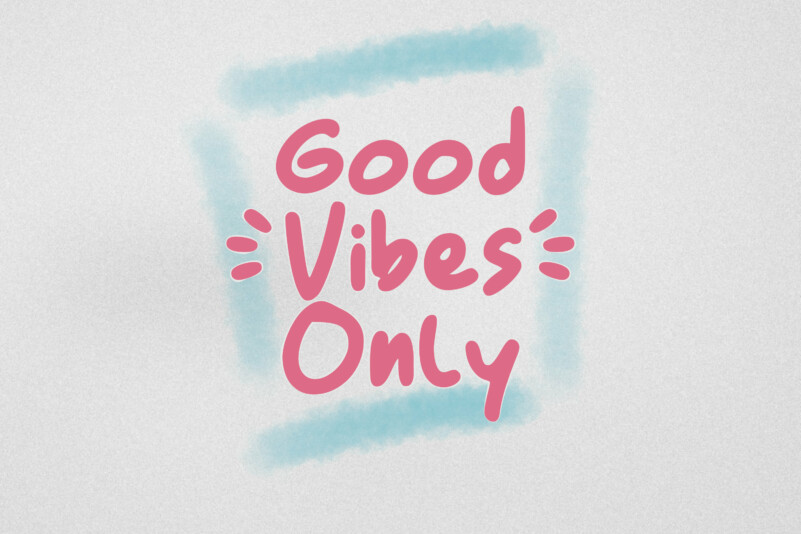
Mauly Display Font is a sweet and cute handwritten font. This font is perfect for a wide pool of designs such as eye-catching social media posts, t-shirts, sportswear, logos, advertisements, clothing, beautiful stationery art, and much more! This font is PUA encoded which means you can access all of the glyphs and swashes with ease!